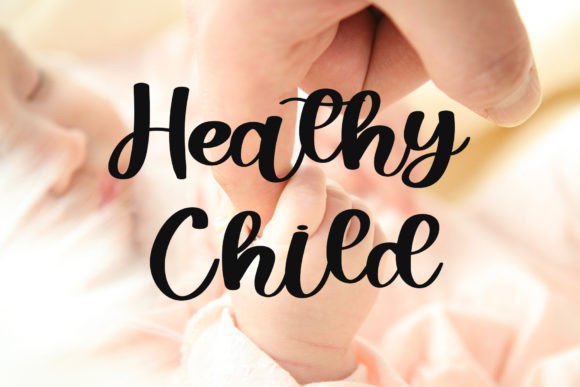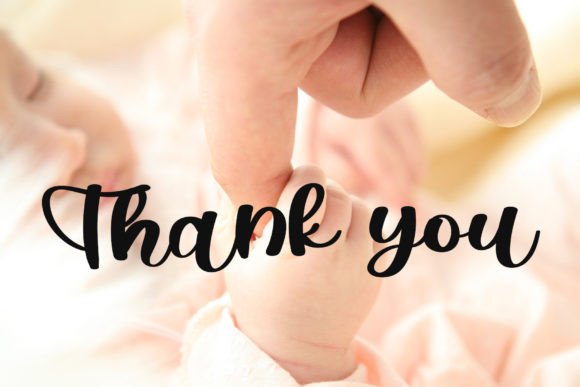
Introduction to Mom Font
Have you ever been working on a creative project, pouring your heart and soul into it, and then suddenly, you stumble upon the perfect font to bring it all together? That’s exactly what happened to many designers when they discovered Mom Font – a delightful, handwritten font that adds a touch of whimsy to any design.
As a valuable design resource, Mom Font offers a unique blend of playfulness and charm, making it an ideal choice for designers looking to add a personal touch to their projects. Its irregular letterforms create a sense of individuality, while its natural, handwritten style adds a warm and inviting feel to any design.
Key Features of Mom Font
- High-quality, vector-based design for a crisp and clear appearance, suitable for various creative projects.
- Comes with a transparent background, allowing for seamless integration into any design.
- Resolution-independent, making it suitable for use at various sizes without compromising quality.
- Includes a range of characters, including uppercase and lowercase letters, numbers, and special characters, making it a versatile design resource.
Honest Review: Mom Font
I recently had the opportunity to work with Mom Font, and I must say, it’s been a delightful experience. As a designer, I’m always on the lookout for high-quality design resources that can elevate my creative projects. And Mom Font certainly delivers.
- High-quality design: Mom Font is beautifully crafted, with intricate details and a charming aesthetic.
- Transparent background: This feature makes it easy to use Mom Font in various design contexts, from graphics to digital assets.
- Limited character set: While Mom Font is a beautiful font, it’s worth noting that it has a limited character set, which may not be suitable for all design projects.
- Not suitable for body text: Due to its intricate details, Mom Font may not be the best choice for body text, as it can be difficult to read at smaller font sizes.
Overall, I’m thoroughly impressed with Mom Font. It’s a beautiful, high-quality design resource that’s perfect for creative projects that require a touch of whimsy and charm. Whether you’re a seasoned designer or just starting out, I highly recommend giving Mom Font a try!
Tips for Getting the Most Out of Mom Font
Use Mom Font as a design resource for your creative projects. Experiment with different font sizes, colors, and styles to get the most out of it. You can also use it in conjunction with other design elements to create a unique look.
Mom Font is commonly used in design projects that require a warm and inviting tone. It is perfect for creating graphics for social media, blogs, and websites. You can also use it in print materials such as business cards, flyers, and brochures.